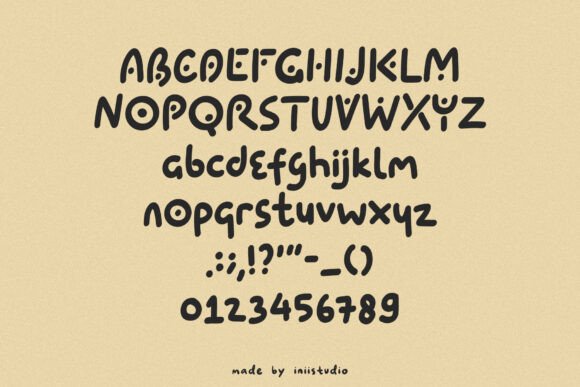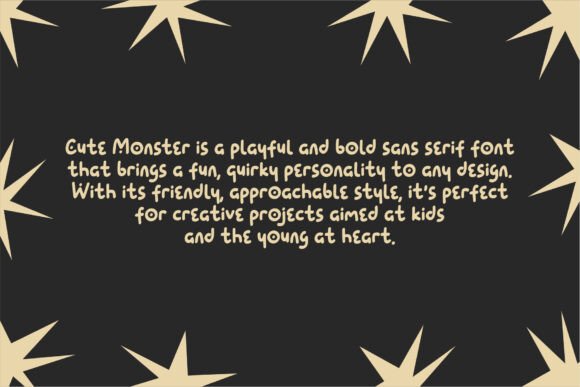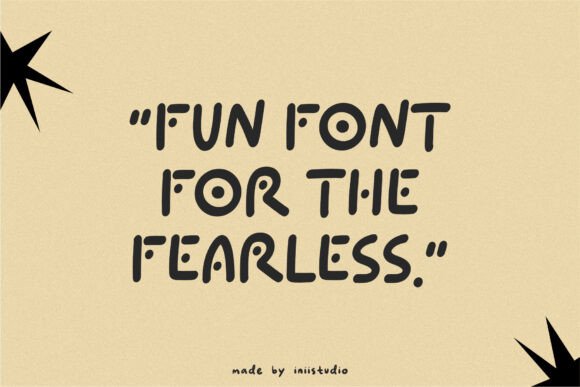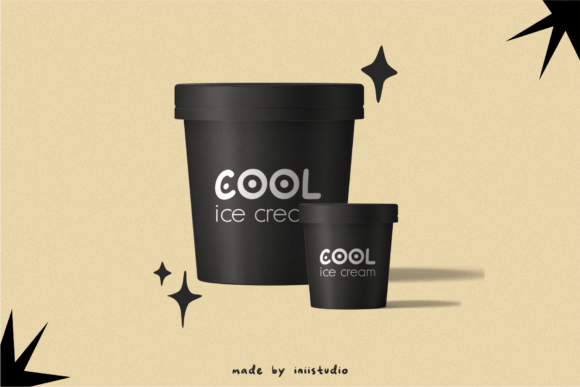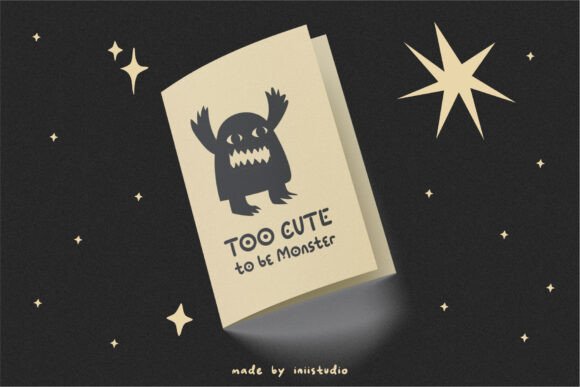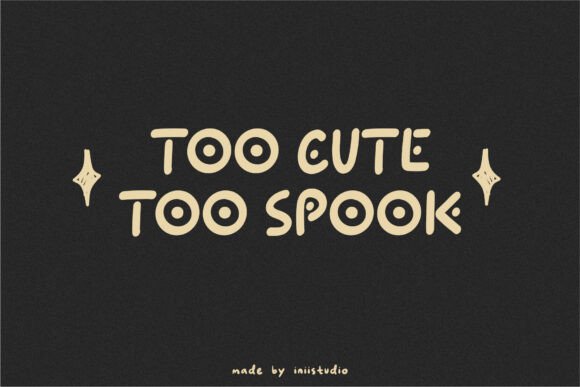
Capturing the Imagination with Cute Monster Font
Have you ever been in the midst of a creative project, staring at a blank page or screen, trying to come up with the perfect font to capture the essence of your design? You want something that’s both playful and professional, yet approachable and engaging. For designers working on projects aimed at kids or the young at heart, finding that perfect font can be a challenge.
Enter the Cute Monster Font, a bold sans serif font that brings a fun and quirky personality to any design. Its friendly style makes it perfect for creative projects such as children’s books, party invitations, or playful branding. With its balance of boldness and cuteness, the Cute Monster Font adds a whimsical touch without sacrificing readability, making it a valuable asset for designers looking to add a little bit of fun and personality to their work.
Cute Monster Font Key Features
- Character Set: The font includes a wide range of characters, including uppercase and lowercase letters, numbers, punctuation marks, and special characters, making it suitable for various design applications.
- Unique Characteristics: Cute Monster Font features a playful, rounded design with a friendly and approachable feel, perfect for children’s books, educational materials, and other projects requiring a whimsical tone.
- Language Support: The font supports multiple languages, including English, Spanish, French, German, Italian, and many others, making it a versatile choice for international design projects.
Cute Monster Font Review
Overall, I think Cute Monster Font is a delightful addition to any design project, especially those targeting a younger audience. ✨ The playful, whimsical feel of the font immediately draws the viewer in and adds a touch of personality to the design. I’ve used it for a children’s book cover and it was a perfect fit.
Here are some of the things that work well with this font:
- ✨ High level of expressiveness: The font conveys a wide range of emotions, making it suitable for a variety of applications.
- ✨ Fun and approachable: Cute Monster Font is perfect for designs that need a lighthearted and friendly tone.
- ✨ Versatile: The font works well for both digital and print designs, from posters to social media graphics.
- ⚠️ Limited legibility at small font sizes: While Cute Monster Font is beautiful at larger sizes, it can become difficult to read when used at smaller sizes.
- ⚠️ Not ideal for formal or professional designs: The font’s playful nature may not be suitable for designs that require a more formal or professional tone.
Overall, I think Cute Monster Font is a great choice for designers who want to add a touch of whimsy and fun to their designs. While it may have some limitations, its playful and expressive nature makes it a valuable addition to any design library.
Use Cute Monster Font for:
- Children’s book covers and illustrations
- Social media graphics and ads
- Blog posts and articles about kids and education
Remember to use the font in moderation to avoid overwhelming your design.